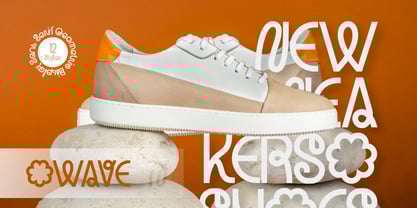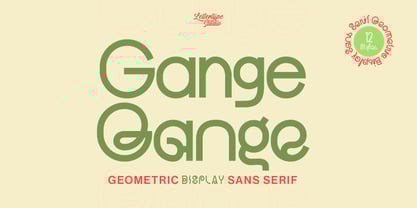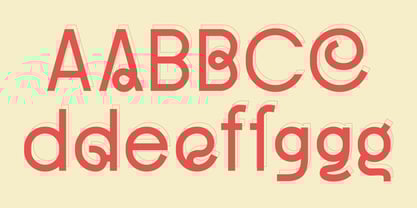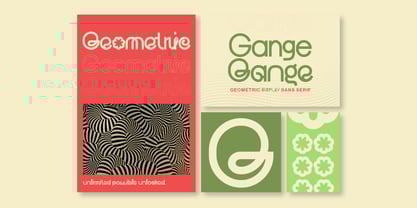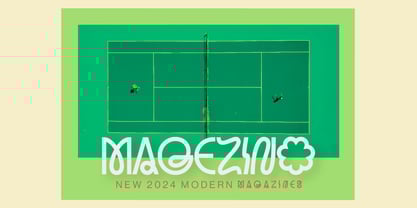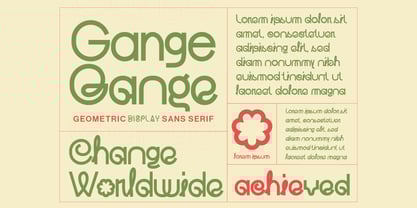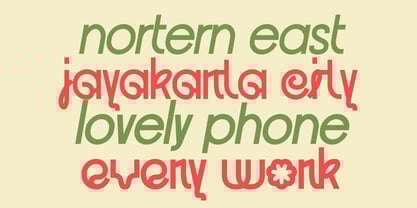
Gange Font Family was designed by Diki Pradipta Tri Atmojo and published by Lettertype Studio. Gange contains 12 styles family package options.
Gange is a Geometric Display Sans Serif with a ton of customization for your unique and standout designs.
Gange geometric display sans serif with over 57+ alternate glyphs for endless customization and creativity to control your projects.
This font will be perfect for photography, watermarks, social media posts, advertisements, logos & branding, invitations, product designs, labels, stationery, wedding designs, product packaging, subheaders or headers, special events, or anything.
Gange